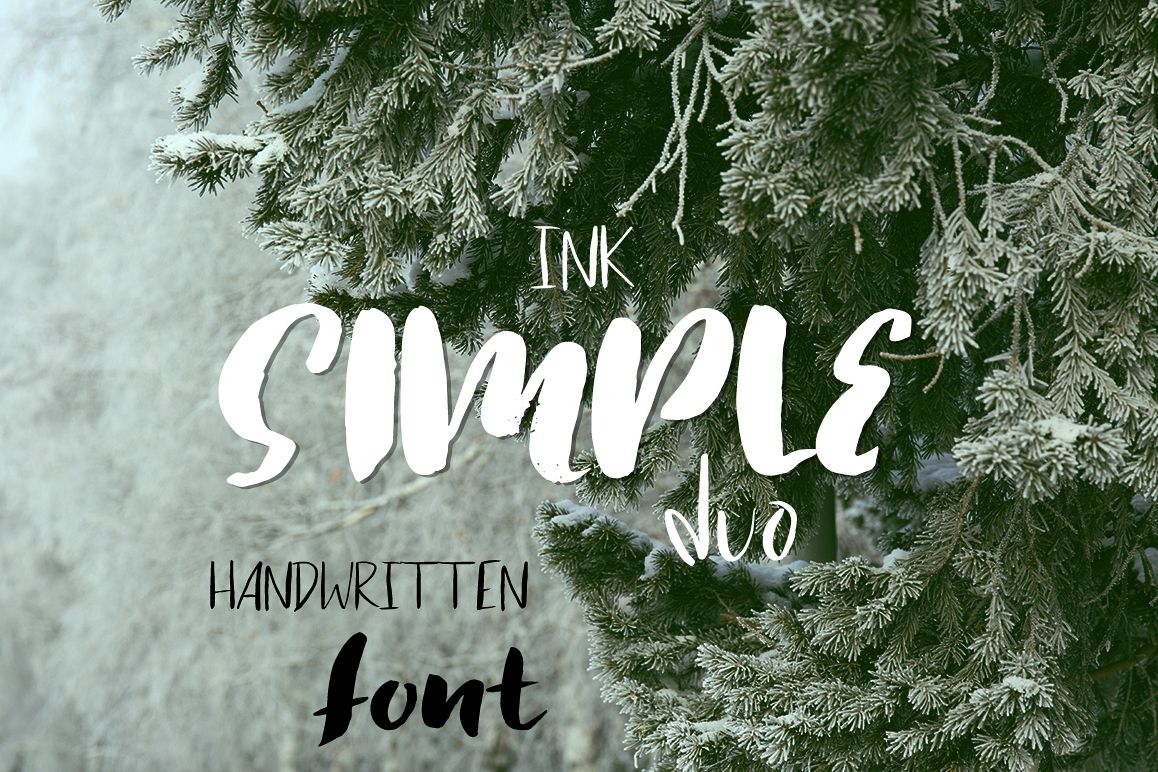
Simple ink font duo
1 ink font
1 simple ink font
Handwritten ink simple font duo. Perfect for retro projects, greeting cards, typography work and more. You can see all the letters, numbers and symbols in the 2 and 3 preview.
• 1 bold ink font
• 1 simple ink font